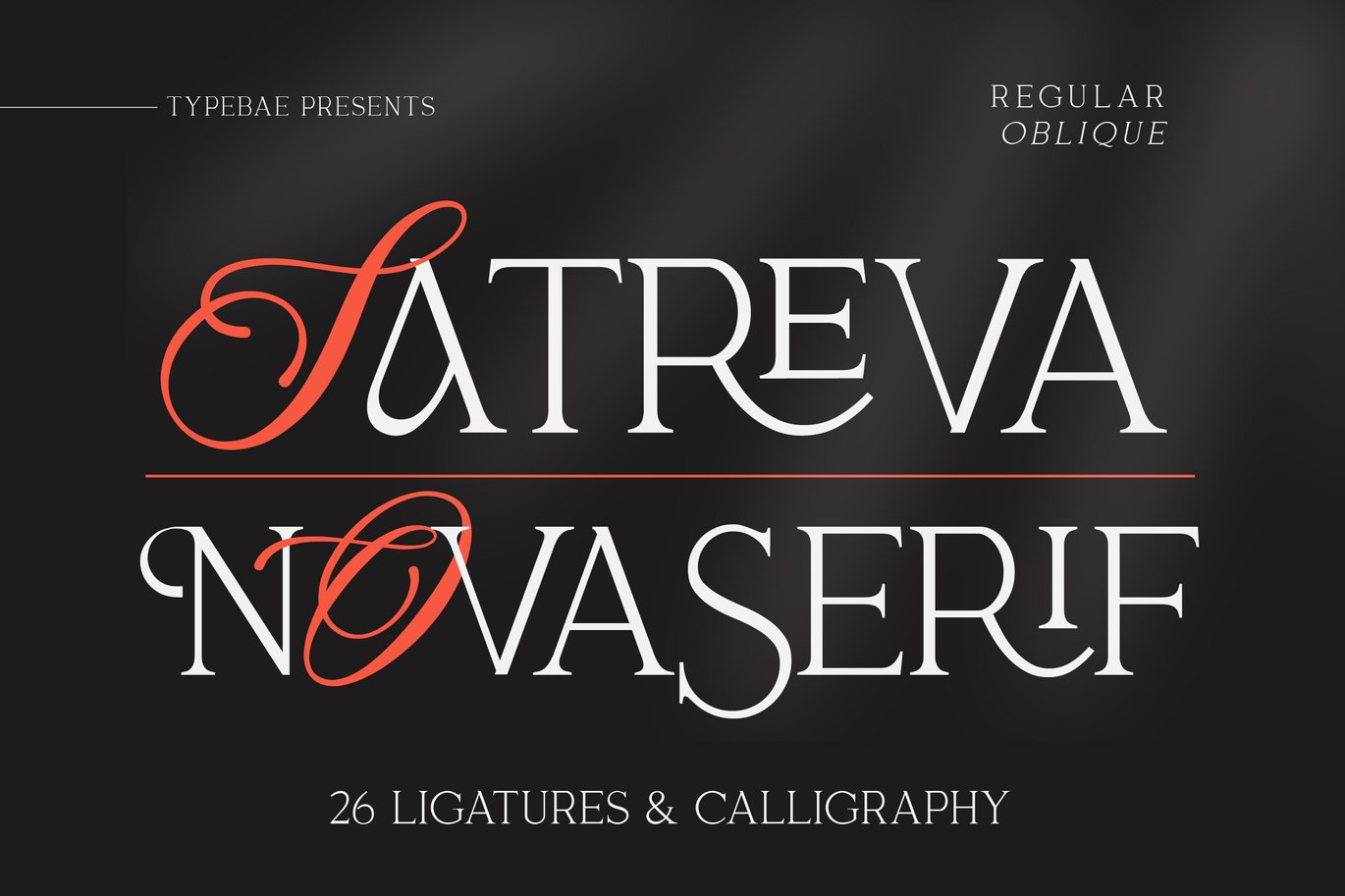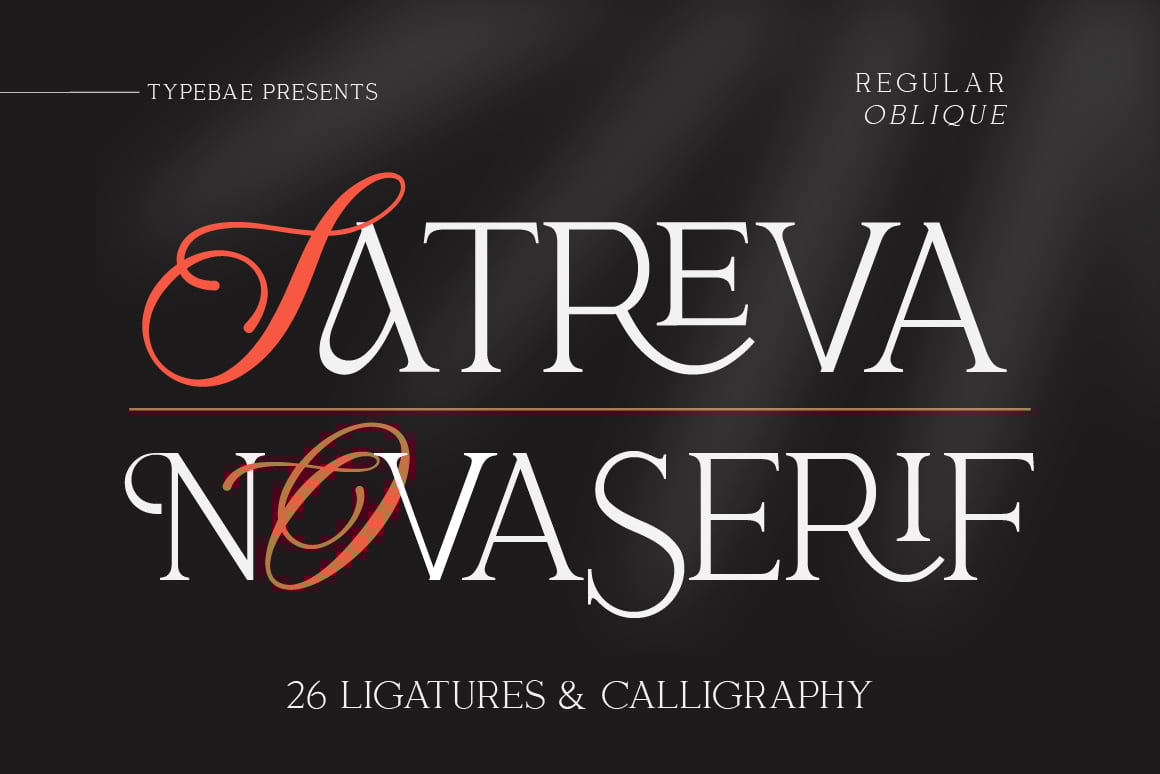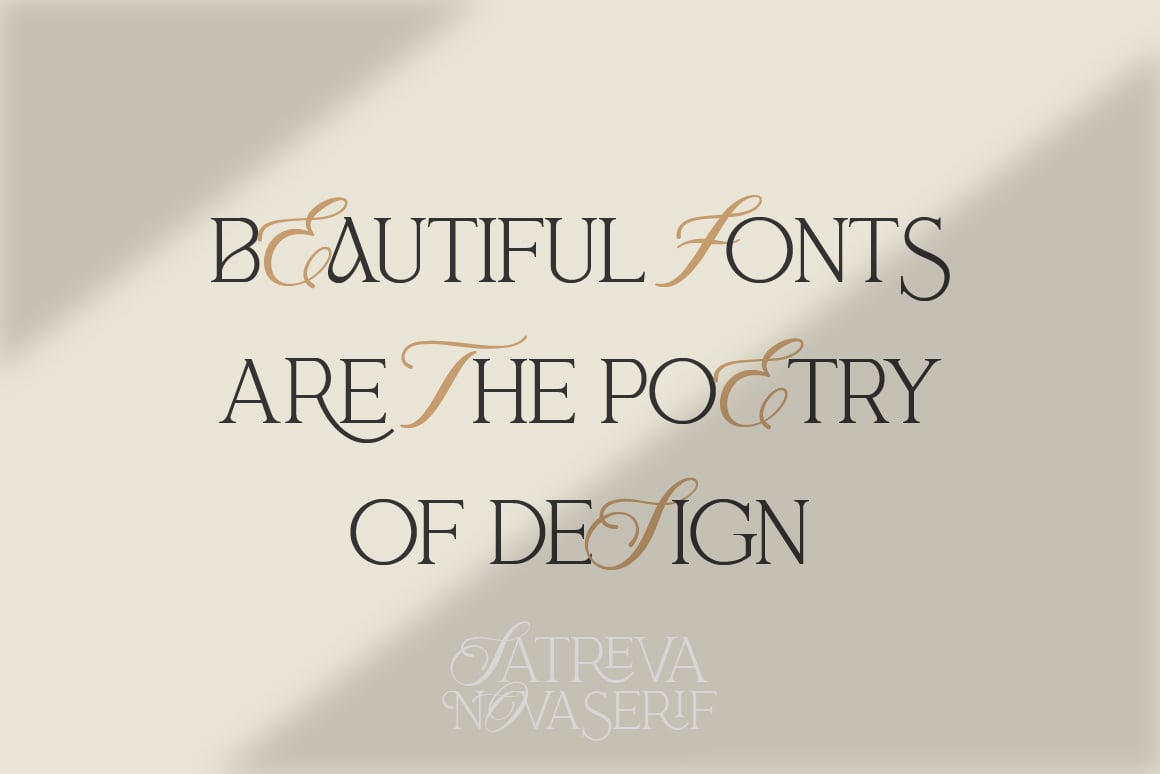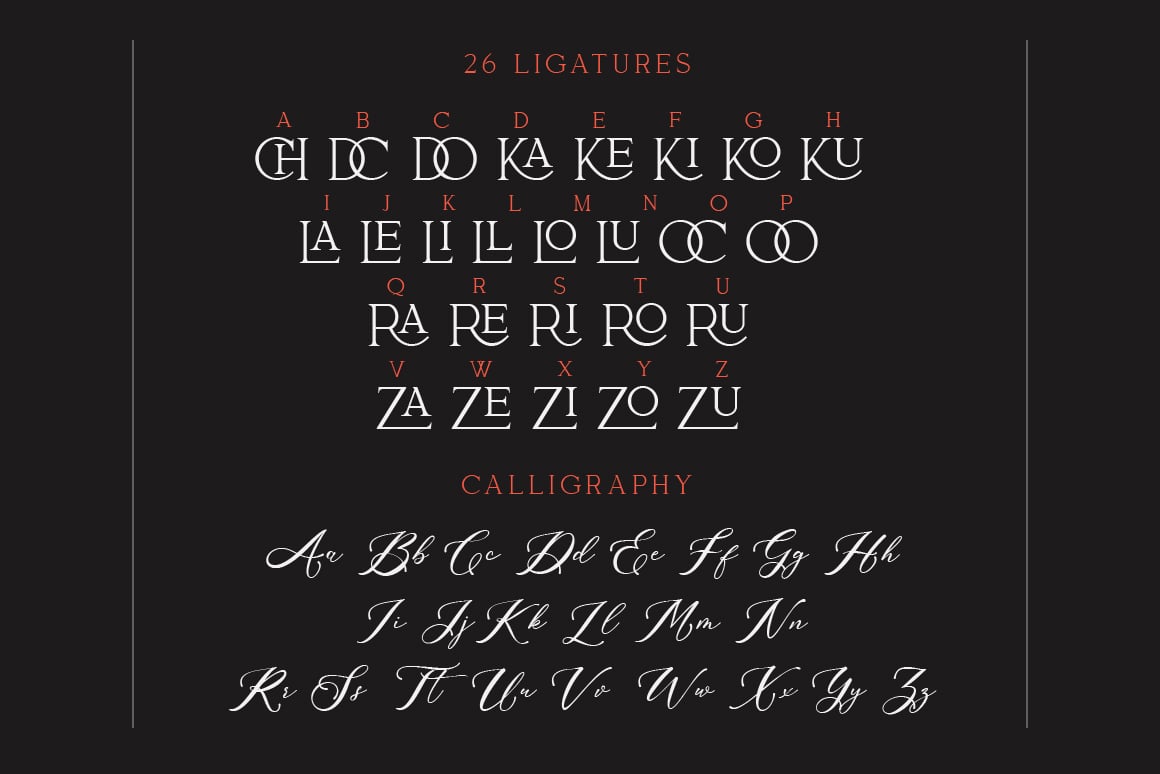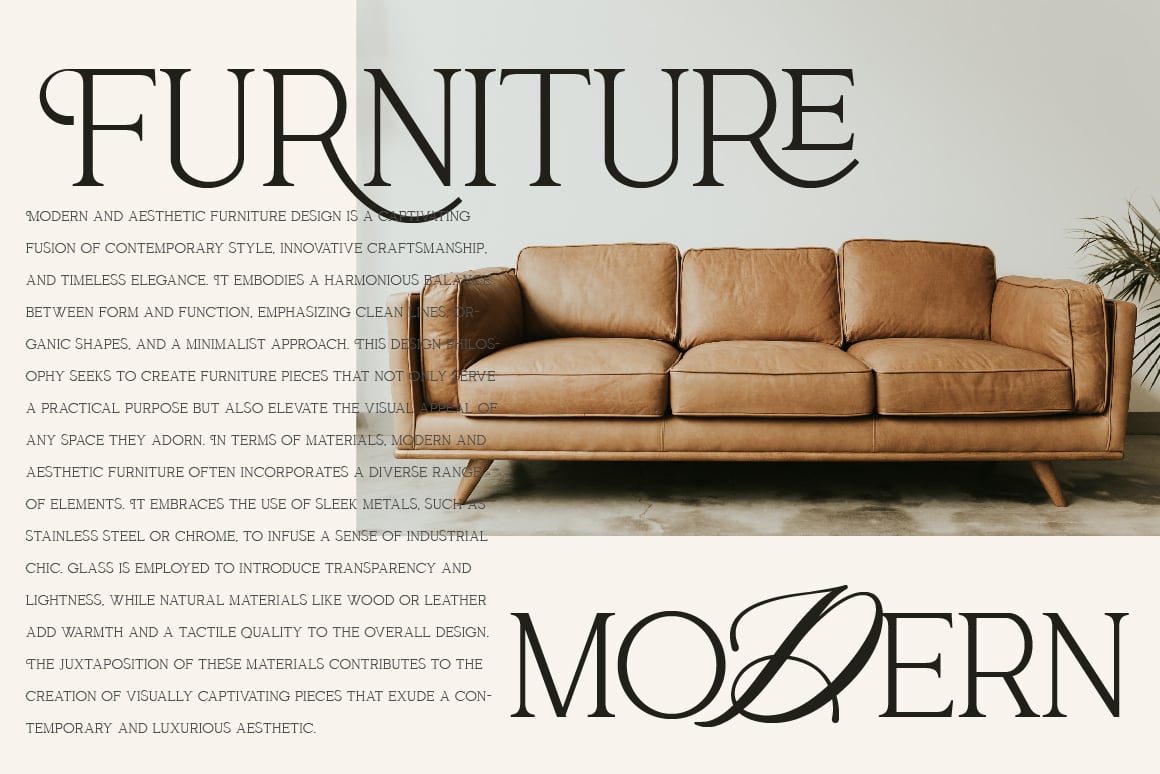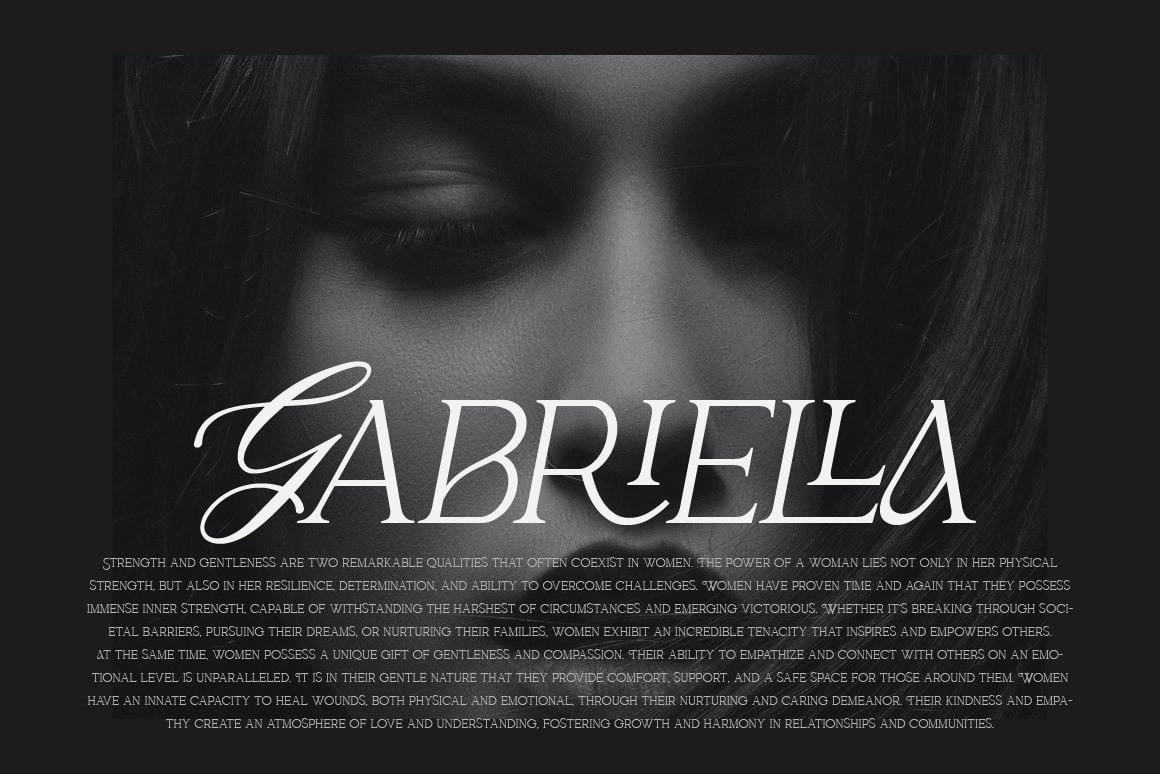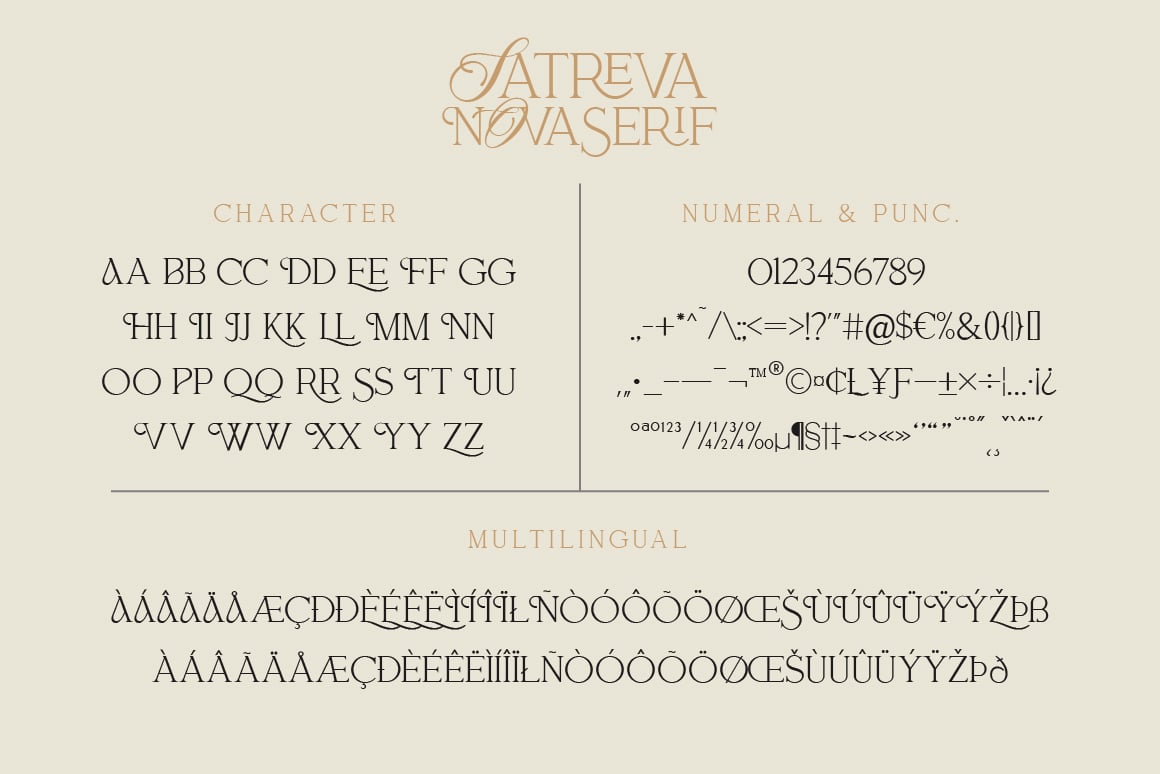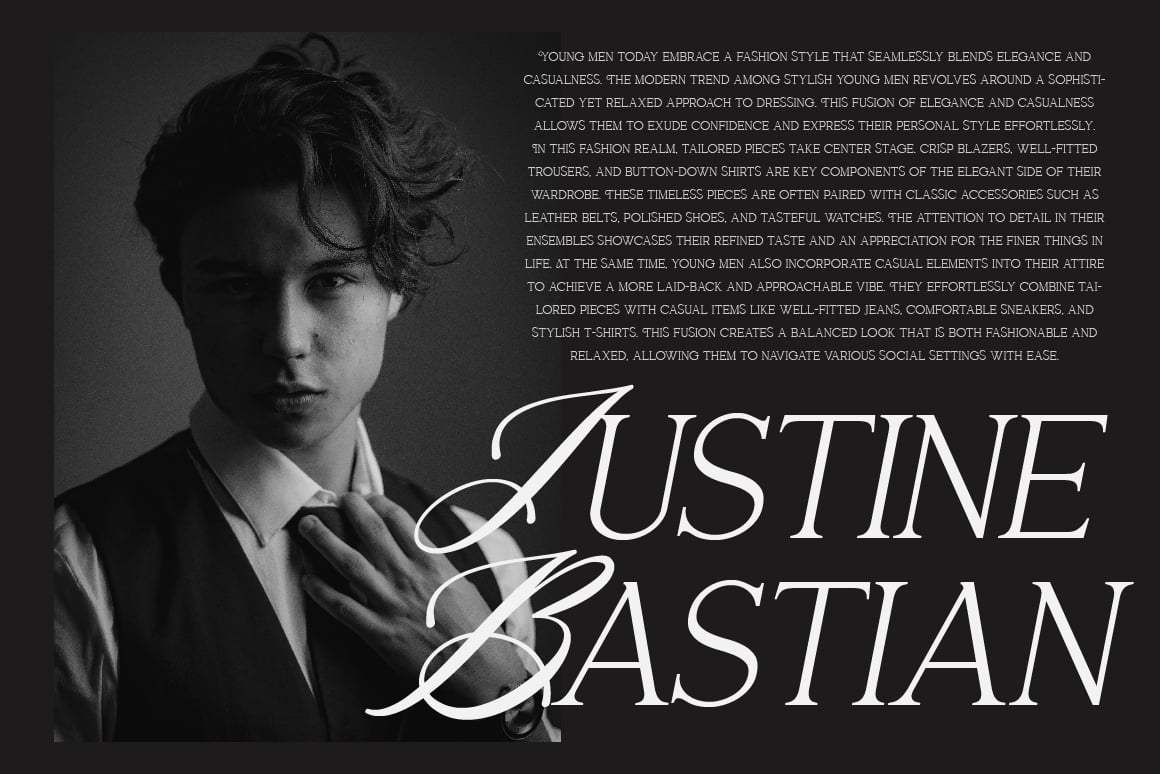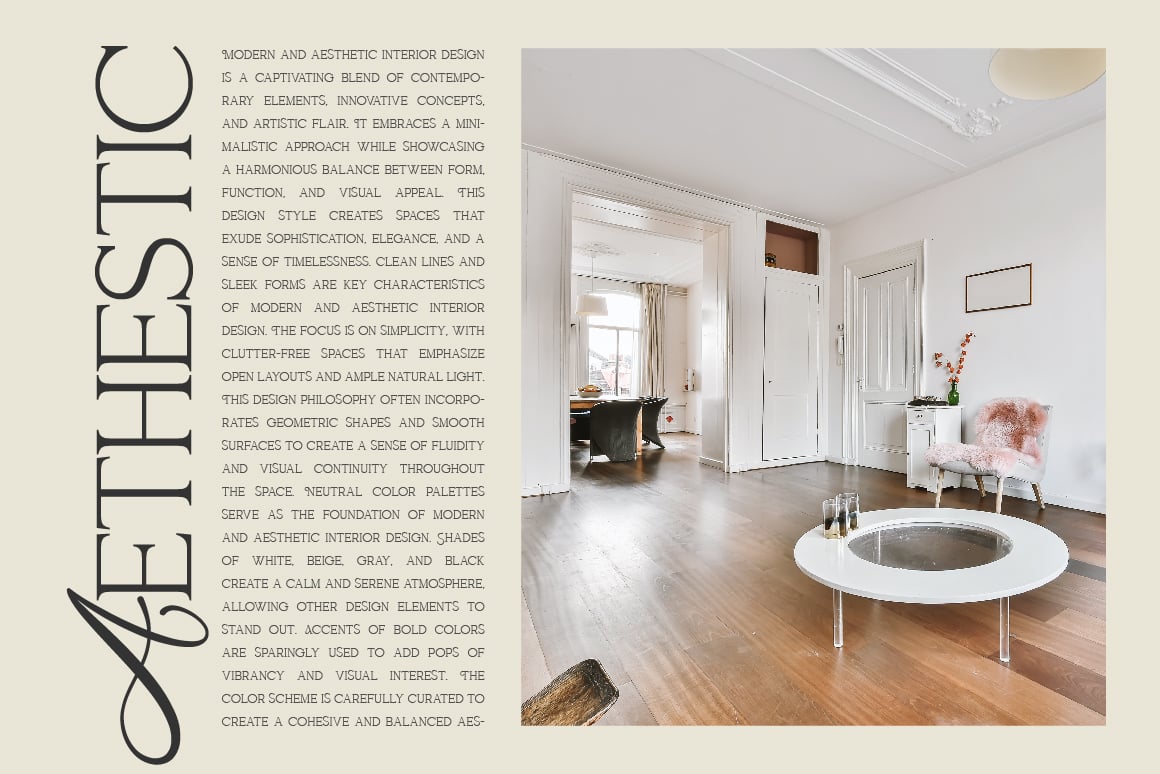
Satreva Nova Serif Font
Satreva Nova Serif is an elegant and stylish serif font that boasts 26 unique ligatures. It exudes a timeless sophistication and is accompanied by beautifully crafted calligraphy. Whether used for branding, editorial design, or any creative project, Satreva Nova Serif adds a touch of class and allure.
- Standard alphabet and punctuation
- 26 ligature feature
- Multilingual Support: Afrikaans, Basque, Breton, Catalan, Danish, Dutch, English, Finnish, French, Gaelic (Irish, Scots), German, Icelandic, Indonesian, Irish, Italian, Norwegian, Portuguese, Saami (Southern), Spanish, Swahili, Swedish.